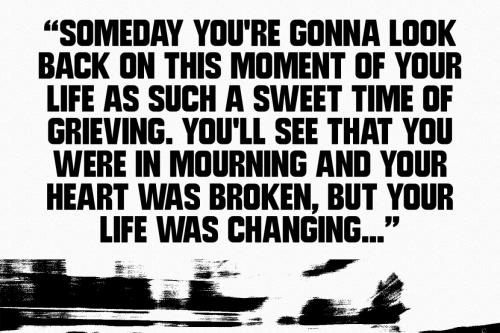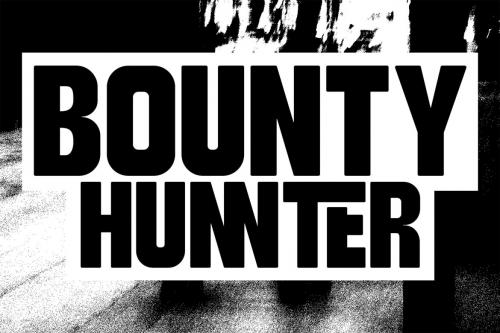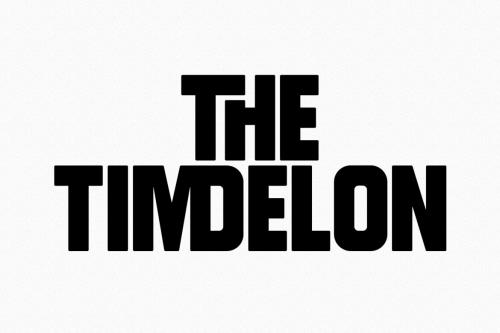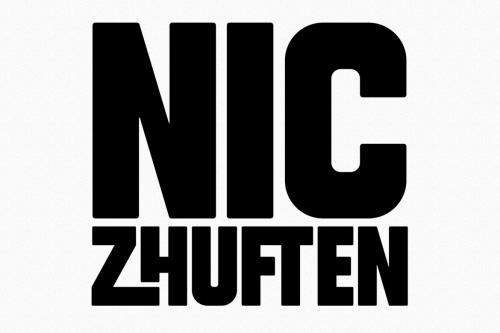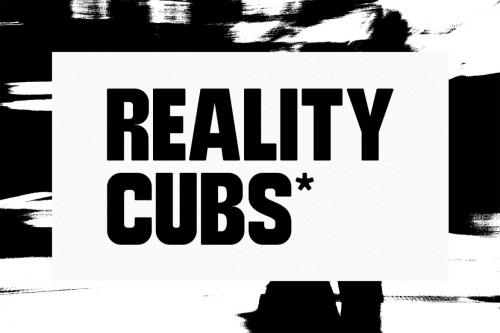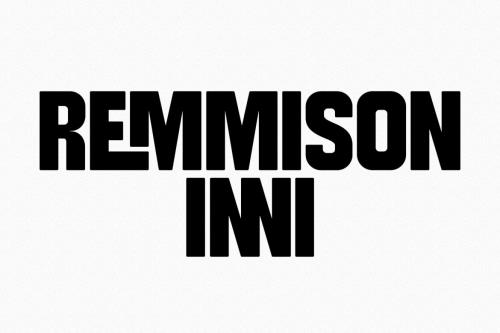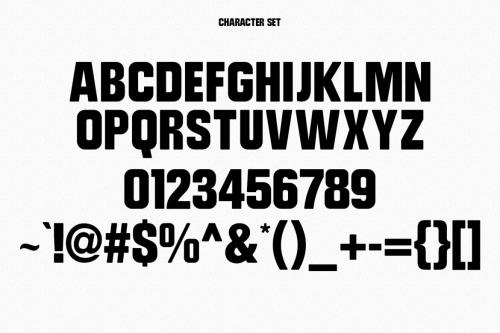
Penney is an All Caps sans Display font. With bold consist stroke, fun character with a bit of ligatures. To give you an extra creative work. Penney font support multilingual more than 100+ language. This font is good for logo design, Social media, Movie Titles, Books Titles, a short text even a long text letter and good for your secondary text font with sans or serif. Make a stunning work with Penney font.